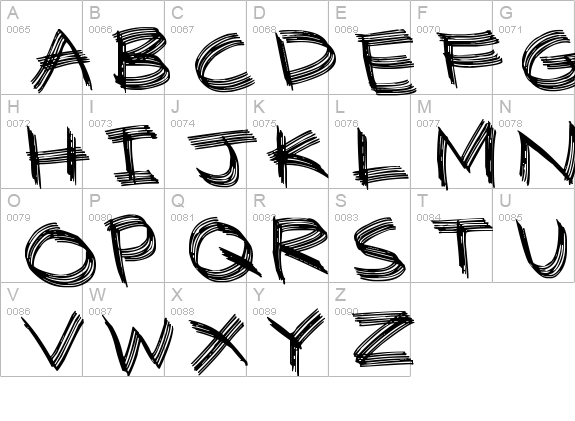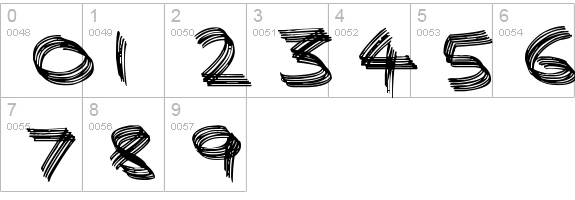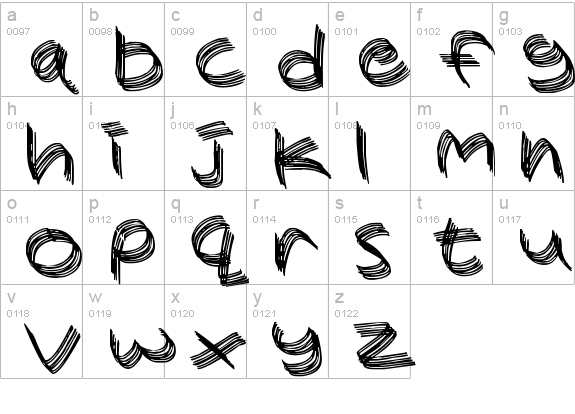
Sandscrape is a free for personal use font in the Script > Brush category, designed by Darrell Flood. It has been downloaded 104 times and is available for Windows, Mac and Linux.
Sandscrape font is a unique and versatile typeface that exudes a sense of exploration and adventure. With its rugged yet elegant appearance, Sandscrape is perfect for a wide range of design projects, from branding to editorial to web design. The font's distinctive hand-drawn style gives it a personal touch that sets it apart from other fonts.